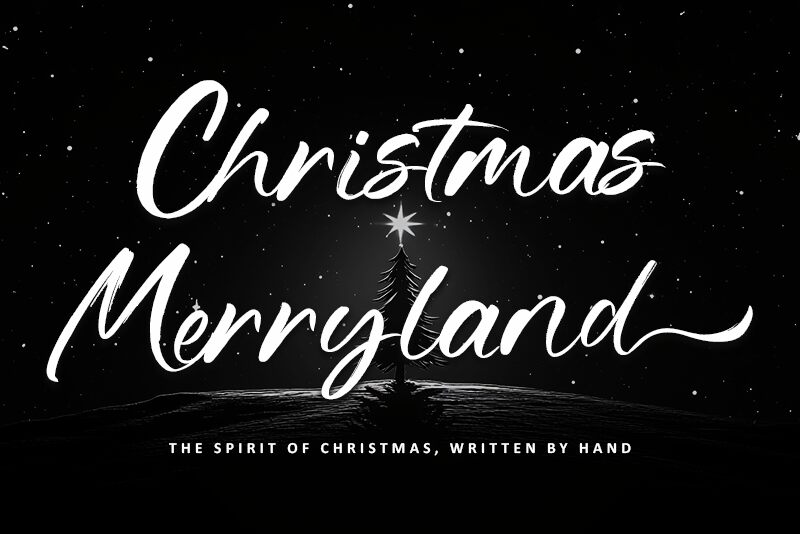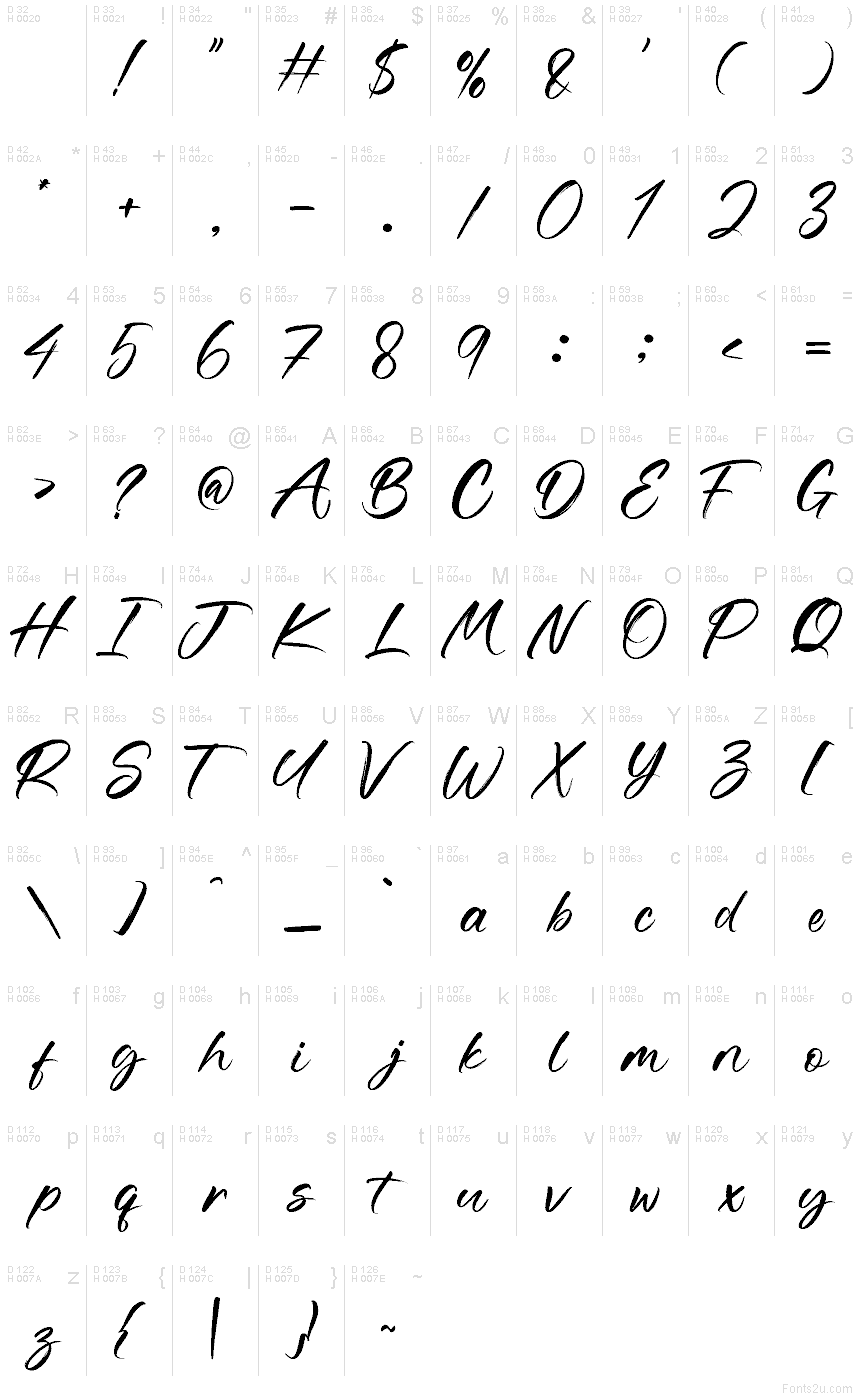
Christmas Merryland font by Letterara is a free brush script typeface that captures the loose, inky flow of hand-painted holiday lettering. Its tall, slightly slanted forms and textured strokes feel like they were written with a real brush on kraft paper gift tags—casual, warm, and a little bit sparkly. The rhythm between letters stays smooth and legible, so you get all the festive personality without sacrificing readability at medium and large sizes.
Using Christmas Merryland, you can instantly warm up Christmas cards, seasonal logos, gift packaging, party invitations, product labels, and social media graphics. This free font shines on short phrases and greetings, especially when paired with a clean sans serif for body text or small details. Try setting it a bit larger with generous letter spacing to show off the grainy brush texture.